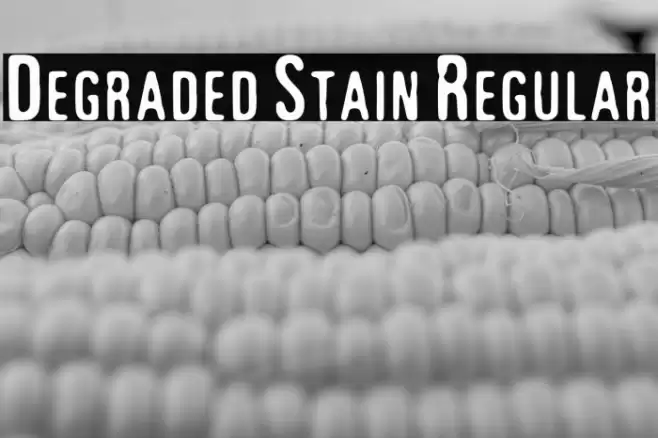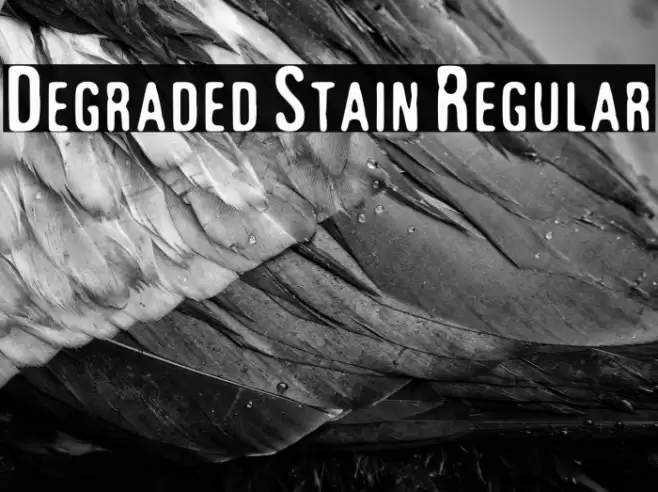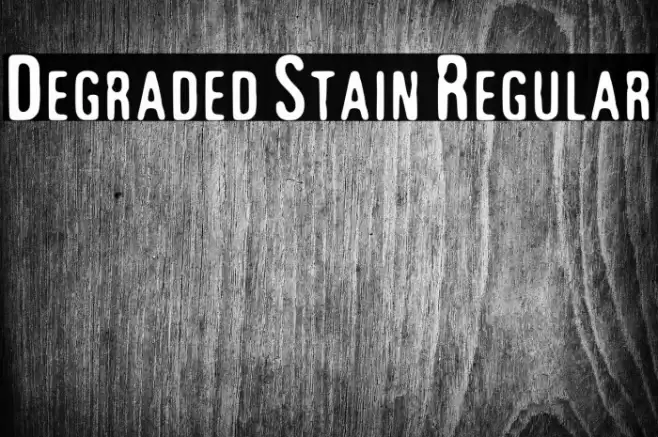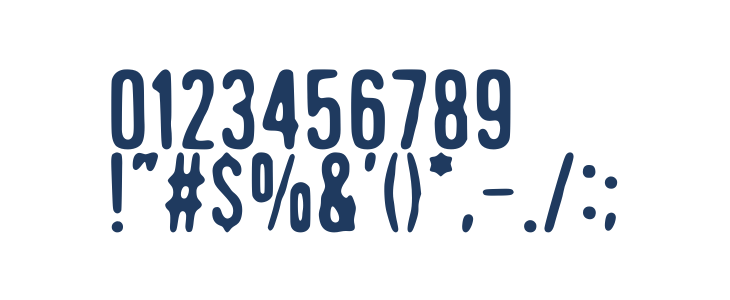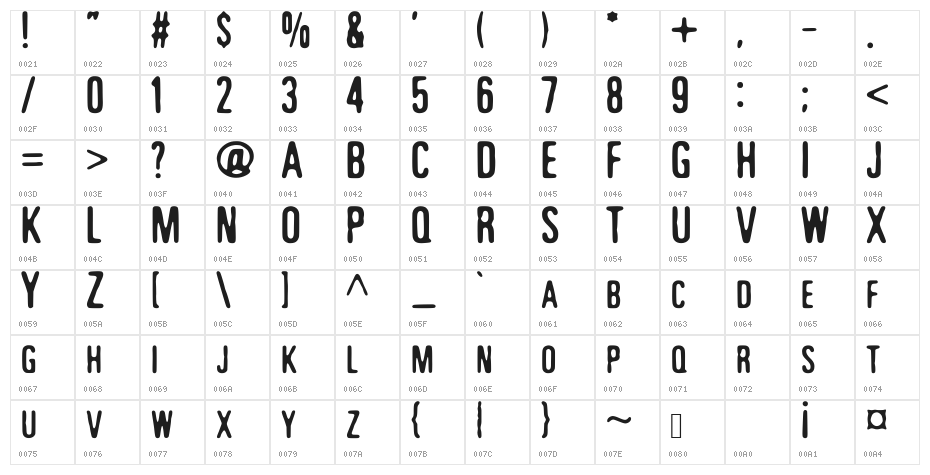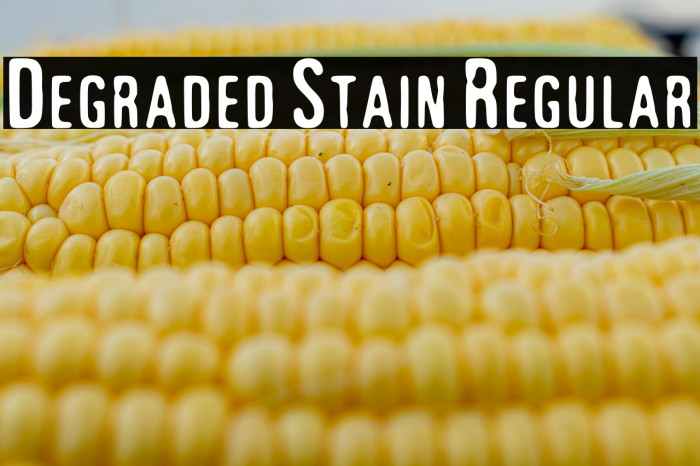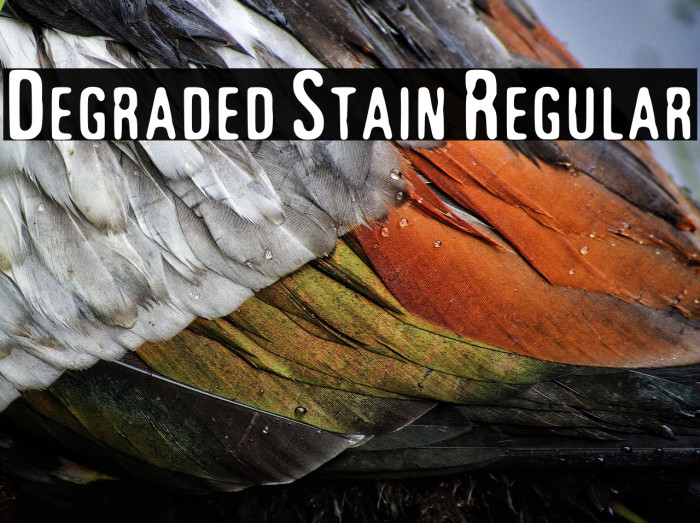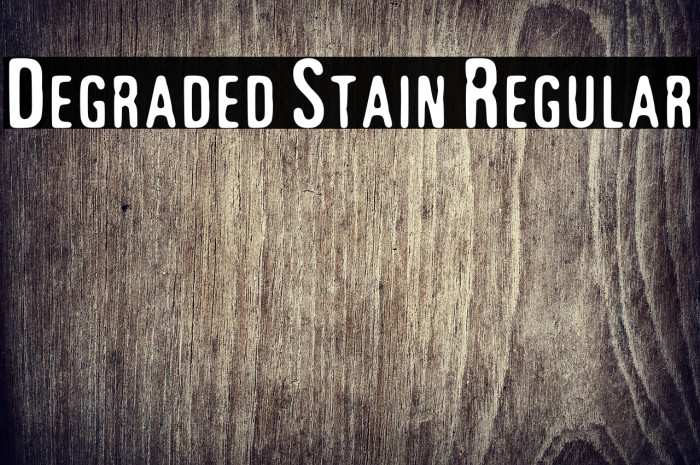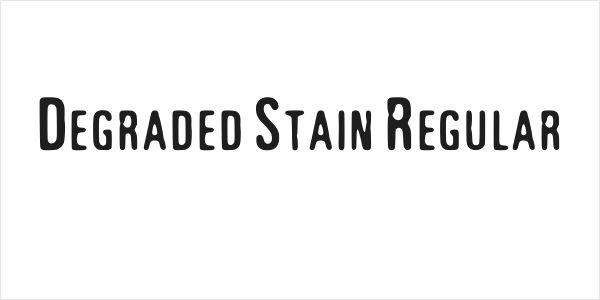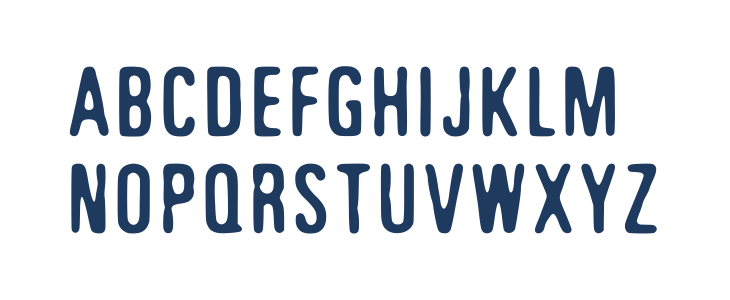
Degraded Stain Regular Font
Degraded Stain Regular Description
This font features a bold and slightly distressed appearance, giving it a unique, weathered look. The characters are thick and rounded, with a consistent stroke width that adds to its boldness. The edges are slightly irregular, contributing to a vintage, handmade feel. The uppercase and lowercase letters maintain a uniform style, while the numbers and special characters complement the overall aesthetic. This font's distinctive style makes it stand out, ideal for projects that require a touch of ruggedness and individuality.
A bold, distressed font with a vintage, handmade feel from Regular fonts.
- Proposed Projects: Ideal for posters, branding, packaging, and any design that requires a bold, vintage touch.
- Overall Style: Vintage